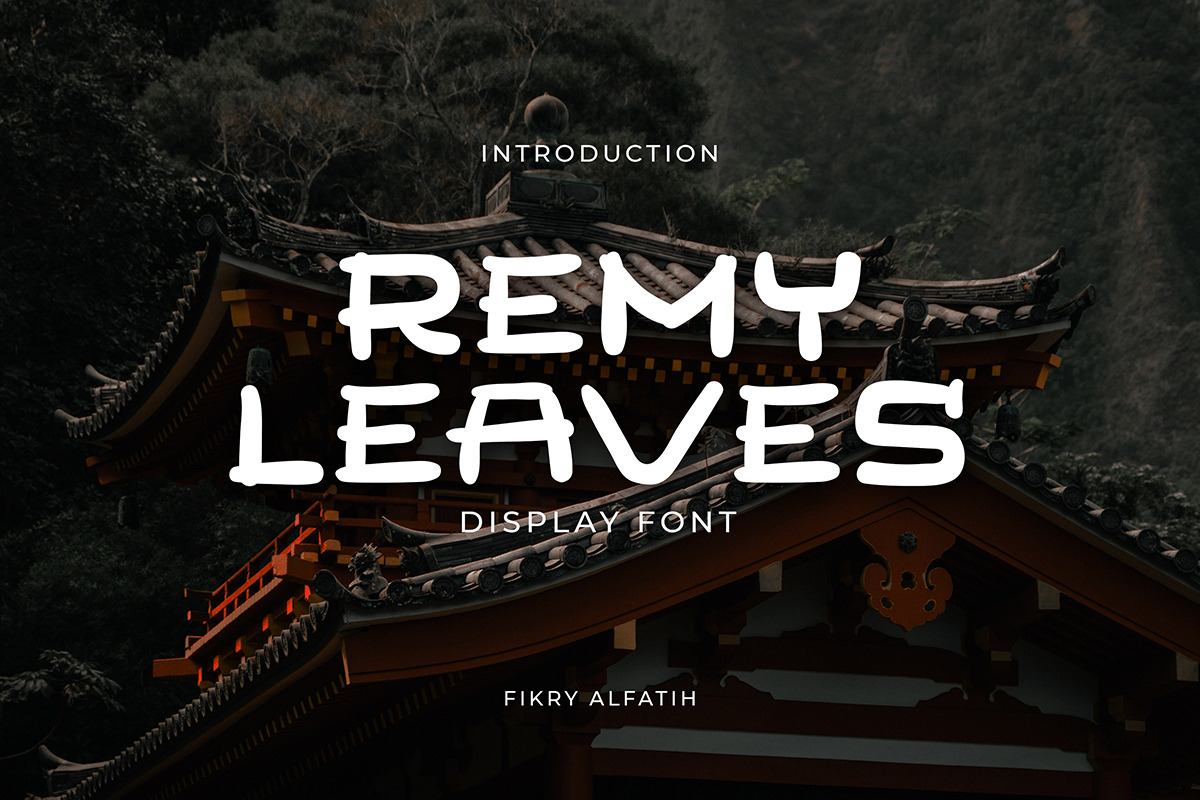
Remy Leaves Display Typeface
Remy Leaves is a Japanese-inspired display font of excellent quality. The Remy Leaves font is suitable for those who like Japanese culture. This font is also suitable for those who have Japanese restaurants, Japanese clothing brands, Japanese films, and business needs related to Japanese culture.